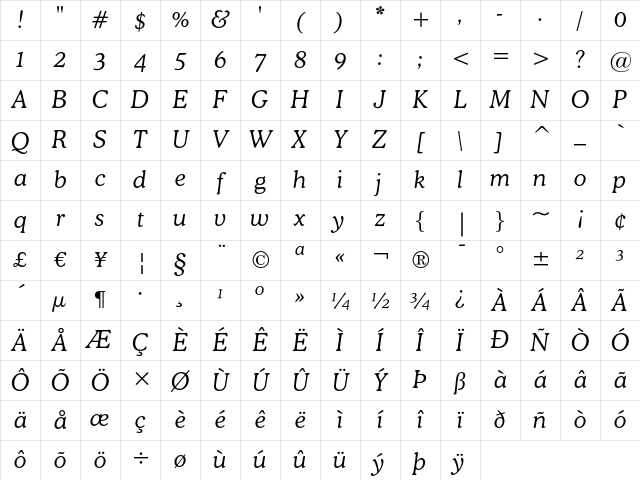
Bitstream Cooper Light Italic
Bitstream Cooper Family
Complete Bitstream Cooper Light Italic glyph index. Displaying only characters natively supported by Bitstream Cooper Light Italic font.
Design Context for Bitstream Cooper
Bitstream Cooper is a composed and adaptable typeface that performs quietly and consistently across a wide range of design contexts. The slanted form adds forward momentum and visual energy. Its slender proportions lend an understated elegance to any composition.
Pro Tip: Use Bitstream Cooper for emphasis, pull quotes, and subheadings where its slanted energy can add rhythm to the layout.